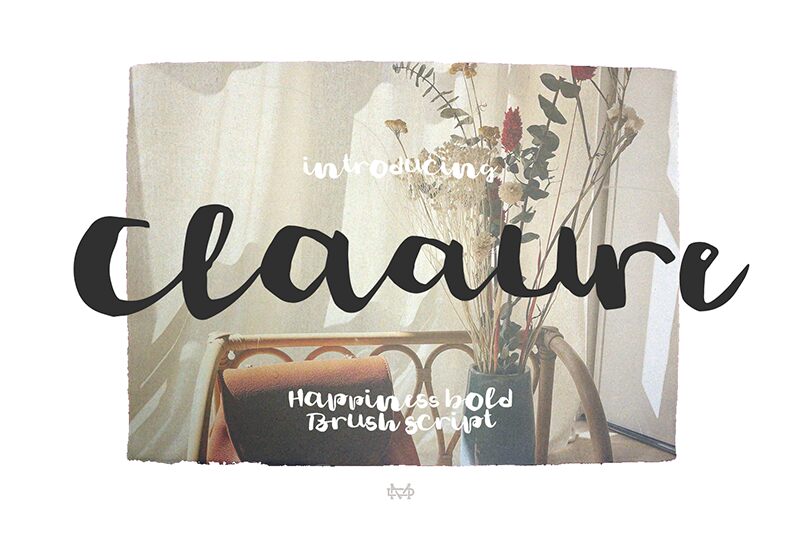
Claaure Demo
Claaure is a striking brush font crafted by madeDeduk. With its dynamic, flowing strokes and bold presence, this typeface exudes a sense of energy and artistic flair. The organic, handwritten-inspired lines give the font a distinctive character, while the substantial weight lends it a sense of authority and confidence. Claaure's unique style makes it a captivating choice for projects seeking to convey a strong, emotive message.
Claaure's versatility shines through its ability to adapt to a wide range of design applications. From vibrant event posters and editorial layouts to impactful branding and packaging, this font's bold presence can elevate any project that requires a touch of artistic expression and visual impact. Its suitability for headlines, titles, and attention-grabbing text ensures Claaure's ability to command attention and leave a lasting impression.